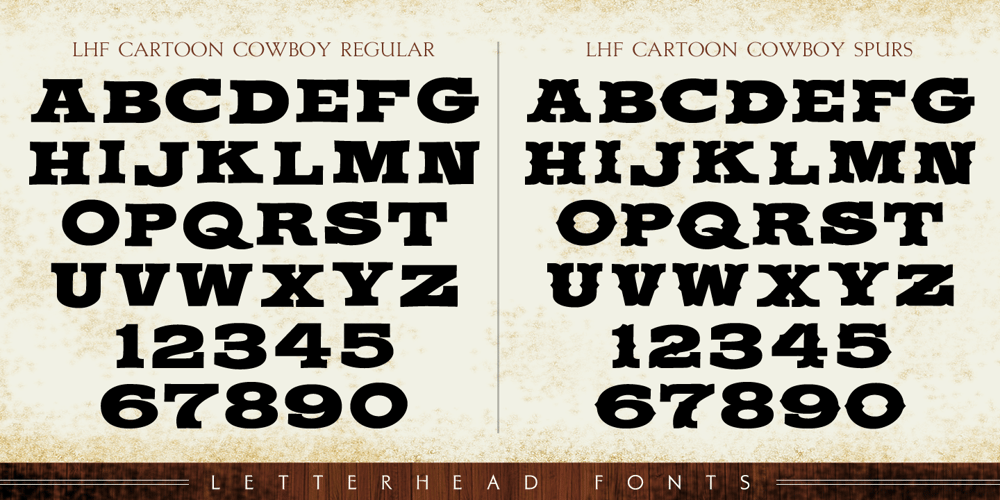
LHF Cartoon Cowboy Font Family was designed by Chuck Davis and published by Letterhead Fonts. LHF Cartoon Cowboy contains 2 styles and family package options. Fun to use casual Western set that includes 2 versions. Letters are staggered (some are higher than others) for a loose hand-lettered look. Letters set on the lowercase characters are at a different height than the ones on the uppercase. Try them both depending on your message. Space tight (even touching) for best results.